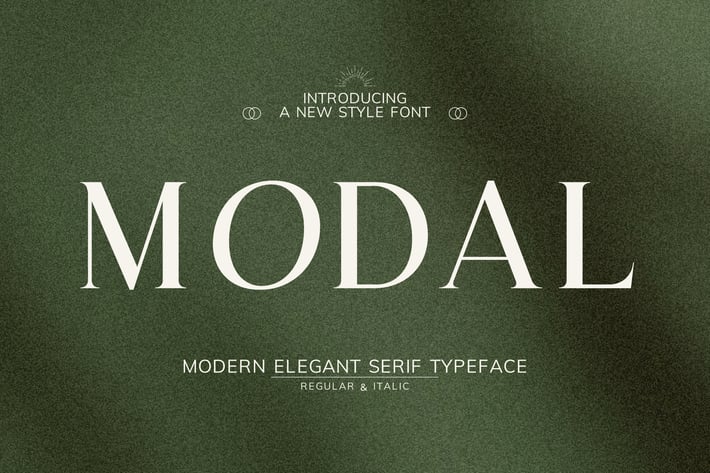
Modal - Modern Elegant Serif Font
Modal - Modern Luxury Elegant Serif Font
is a premium modern luxury serif font designed to bring elegant sophistication to your branding and design projects. Crafted with stylish serif details, this font offers a sleek, professional touch for logos, marketing materials, packaging, and digital applications.
Whether you’re working on a luxury brand identity, Modal will give your design a refined and timeless edge. It’s ideal for use in high-end logos, wedding invitations, fashion branding, and premium marketing materials.
Font Features:
Clear and Versatile Design: Offers easy readability with a modern style that stands out in both digital and print mediums.
Complete Character Set: Uppercase and lowercase characters, Italic, numbers, punctuation, and symbols.
OpenType Features: Access alternates, ligatures, and unique stylistic sets to customize your design.
Multilingual Support: Includes support for multiple languages, including English, Spanish, French, German, Portuguese.
Modal combines clean lines and sophisticated curves to create a striking visual impact while maintaining clarity. Whether you are designing for luxury branding, beauty products, or fashion campaigns, this font adapts to your needs and enhances the visual appeal of your design.
Luxury Branding: Elevate your upscale designs with a sophisticated touch.
Fashion Labels: Create stylish and elegant logos for the fashion industry.
Wedding Invitations: Perfect for timeless and classy event materials.
Corporate Identity: Bring professionalism to your business projects.
Creative Ventures: Ideal for innovative designs with a premium feel.